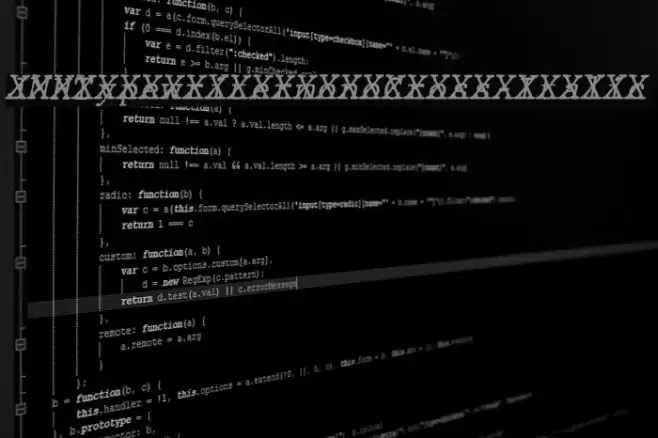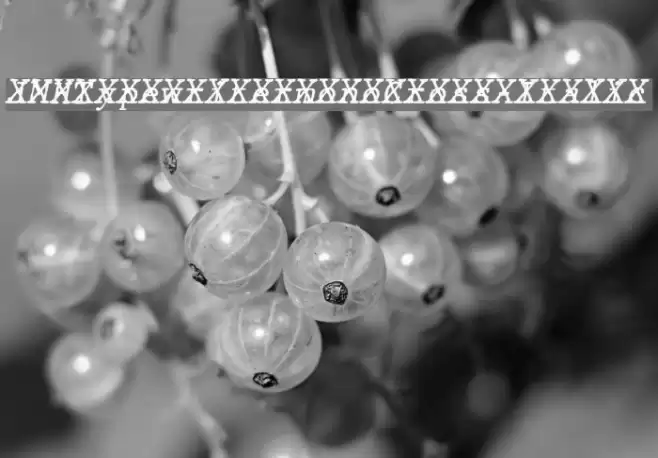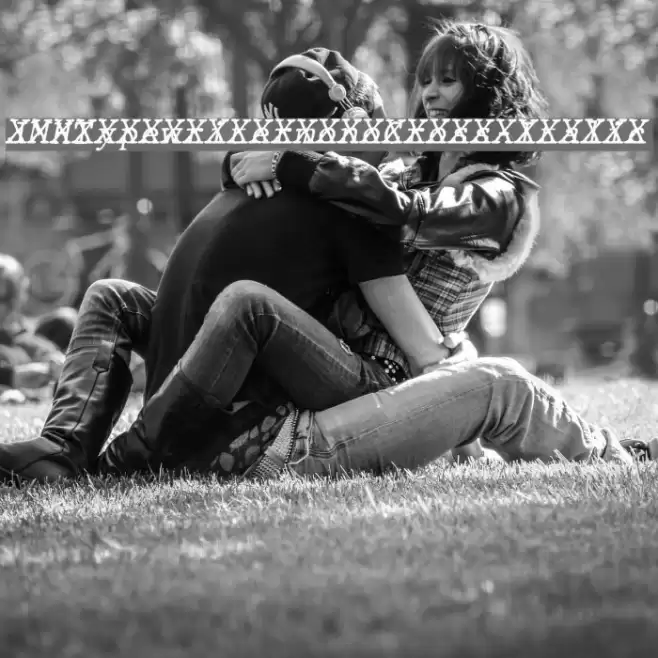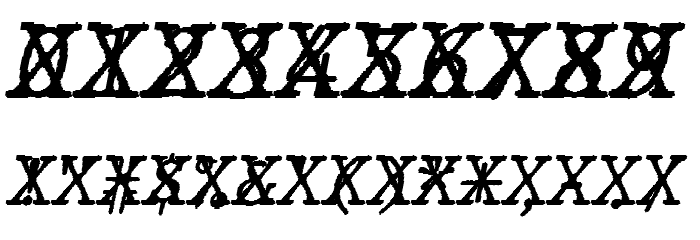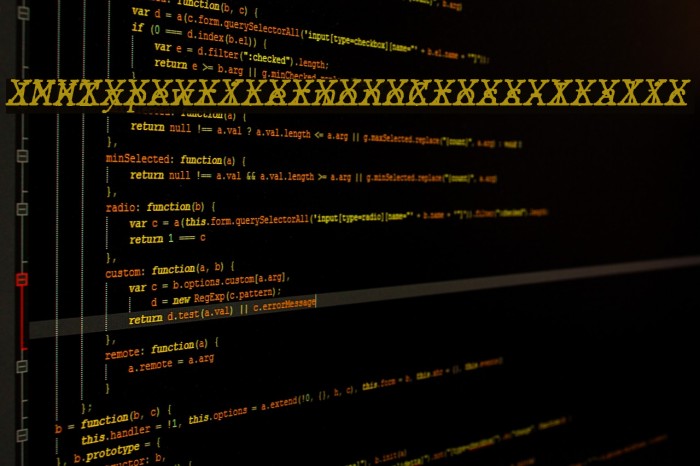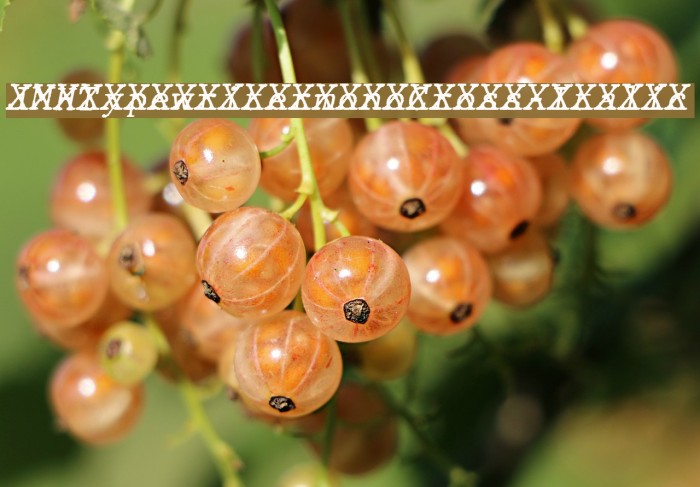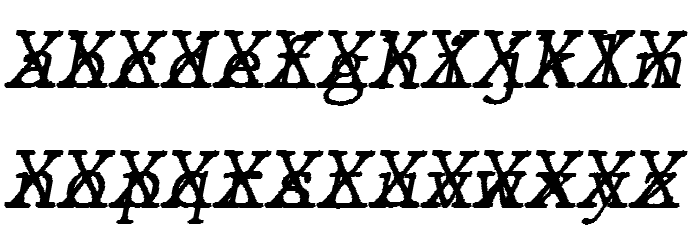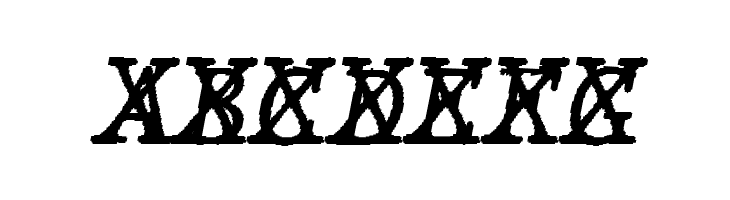
JMHTypewritermonoCross-Italic Font
JMHTypewritermonoCross-Italic Description
This font exhibits a distinctive typewriter style with a monospaced design, characterized by uniform spacing between characters. The italic slant adds a dynamic and slightly informal touch, while the cross-hatched texture gives it a unique, textured appearance. The strokes are consistent in thickness, providing a balanced look. The overall aesthetic is reminiscent of vintage typewriter fonts, making it suitable for projects that require a retro or nostalgic feel. The characters are clear and legible, ensuring readability even in smaller sizes.
A monospaced, italic typewriter-style font with a cross-hatched texture from Typewriter fonts.
- Proposed Projects: Ideal for retro-themed designs, typewriter-inspired projects, creative writing pieces, or any project seeking a vintage aesthetic.
- Overall Style: Vintage
- Use Case: Headlines, Logos, Creative writing